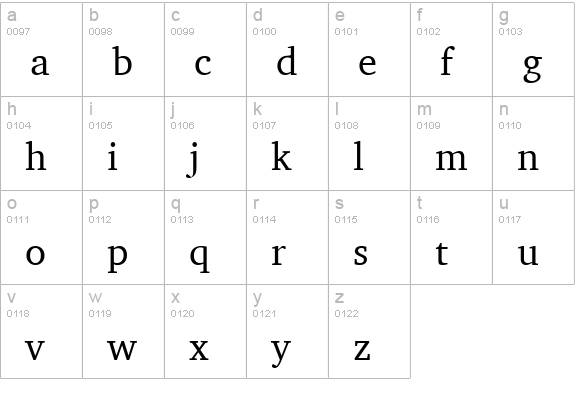
Challenge Normal is the standard, neutral variant in the Challenge typeface family \xE2\x80\x94 well suited to general body text, paragraphs, and standard typographic work.
Challenge Normal font is a versatile and modern typeface that adds a touch of sophistication to any design project. With its clean lines and balanced proportions, this font is perfect for a wide range of applications, from branding to editorial design. The Challenge Normal font exudes confidence and professionalism, making it a popular choice among designers and creatives. Best of all, Challenge Normal font is available for free download at FontsMarket.com. Whether you're working on a personal project or a client commission, this font is a valuable addition to your design toolkit. Don't miss out on the opportunity to enhance your work with the timeless elegance of Challenge Normal font – download it today and elevate your designs to new heights.